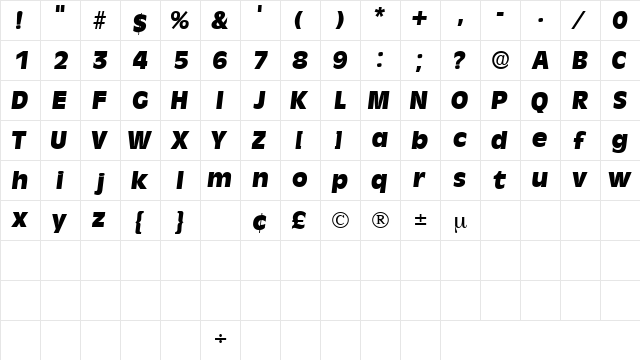
MisceDisplaySSK Italic
Design Context for MisceDisplaySSK Typeface
MisceDisplaySSK is built around its visual character rather than neutral utility — its distinctive forms are designed to make an impression at display sizes. The slanted form adds forward momentum and visual energy.
Font Pairing: Pair with a clean neutral sans-serif for body copy to let MisceDisplaySSK's character lead without overwhelming the composition.
Pro Tip: Use MisceDisplaySSK exclusively at display sizes — it was designed to be seen, not read at length. Let a neutral companion handle body copy.